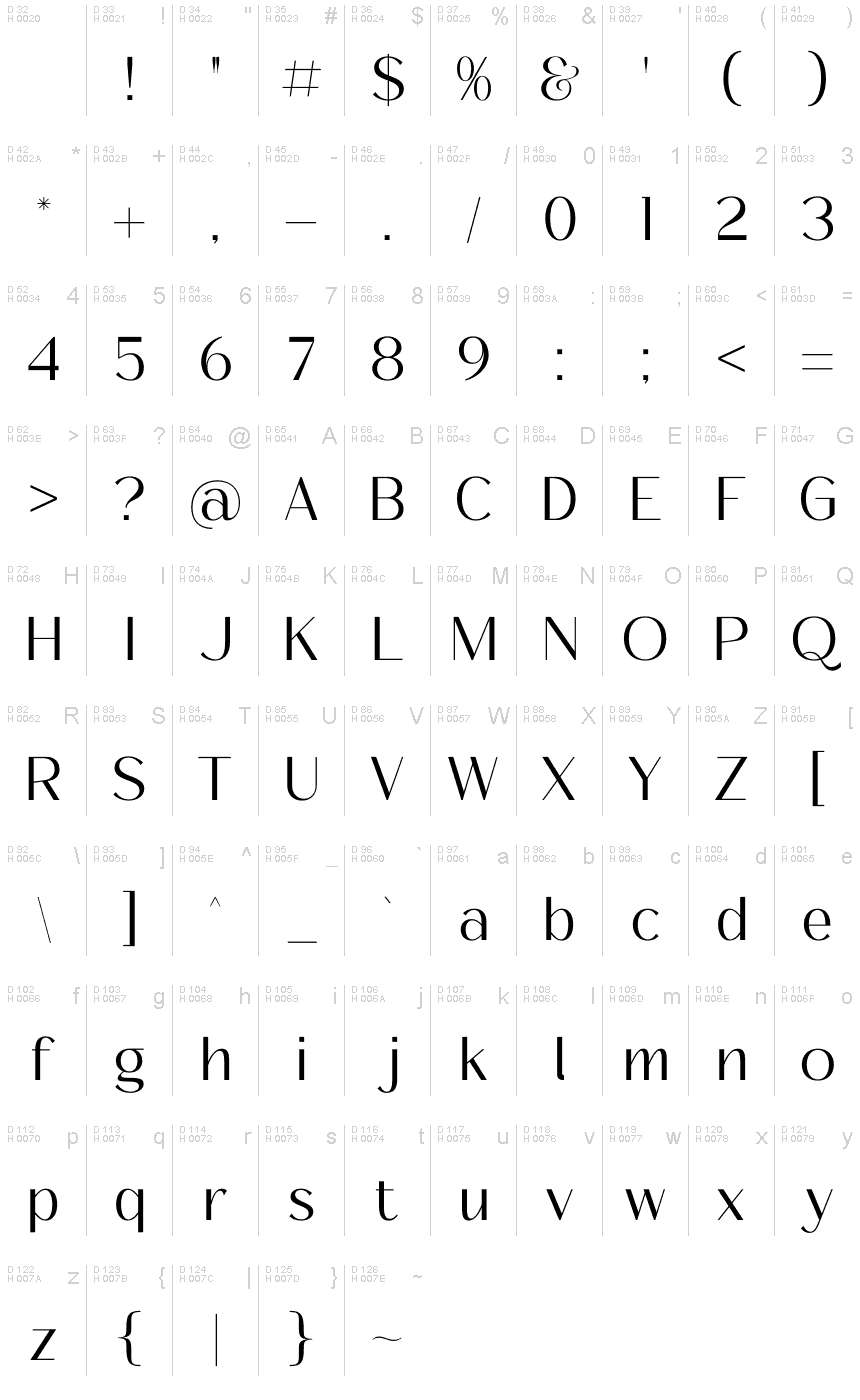
Qasbyne
Qasbyne, crafted by the talented minds at Storytype Studio, is a sans serif font that melds clarity with character. Its semi-light weight offers a fresh take on the traditional sans serif, providing an airy and contemporary elegance to the visual narrative. The sleek lines and subtle curves present an understated aesthetic charm that speaks of modernity without sacrificing readability.
The versatility of Qasbyne lies in its clean simplicity coupled with a touch of distinctiveness. This makes it an excellent choice for various creative projects, from branding and advertising to editorial design. Whether gracing the header of a sophisticated website or enhancing the text on minimalist packaging, Qasbyne's style is poised to add a professional yet engaging tone to your designs.